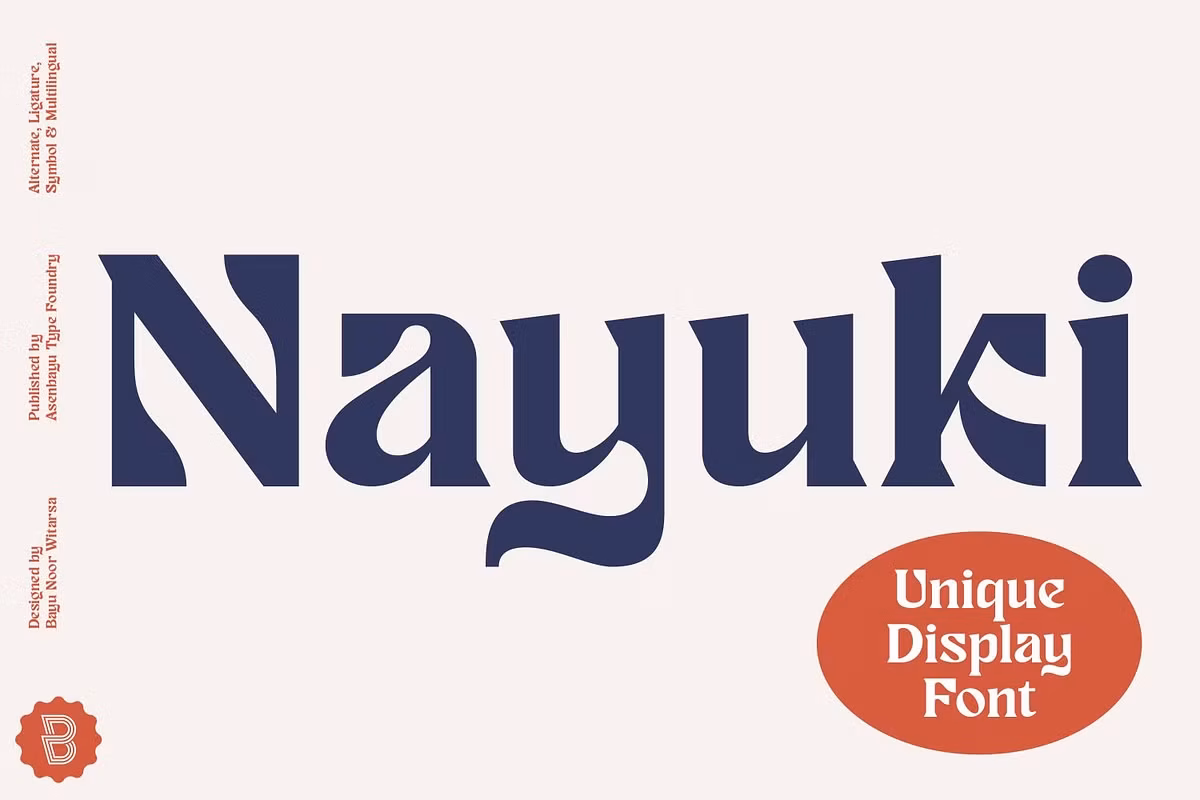
Please note that you must purchase this font for commercial use. You can download Nayuki Font for free, strictly for personal testing purposes only. Nayuki is a modern, elegant serif font designed with sharp details and clean lines. Its refined, sophisticated look makes Nayuki Font Free Download perfect for professional branding, logos, editorial designs, invitations, and websites that require a stylish and contemporary feel.
The font combines classic serif features with modern proportions, making it versatile for both print and digital applications. It includes uppercase and lowercase letters, numerals, punctuation, and multilingual support, ensuring it works for a wide range of design projects.
Whether you’re designing a luxury brand, creating sophisticated marketing materials, or working on an elegant editorial layout, Nayuki adds timeless elegance to your typography.